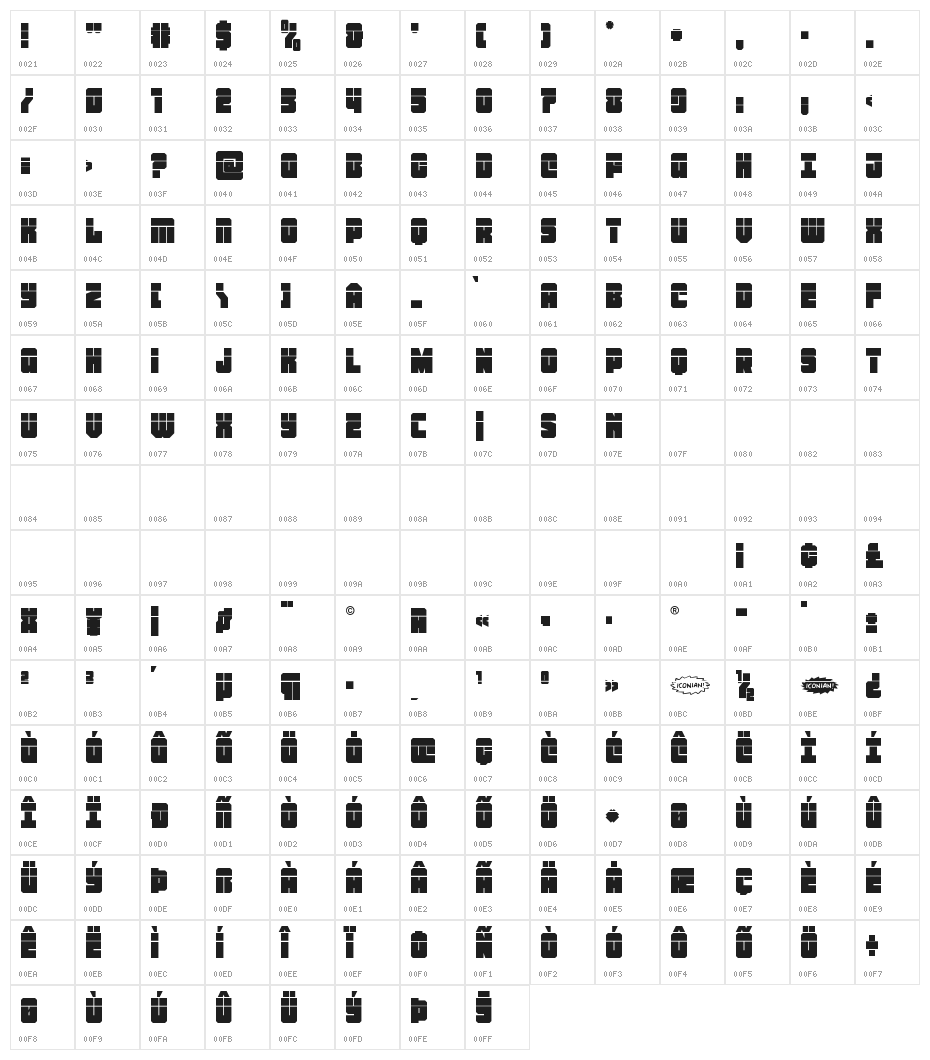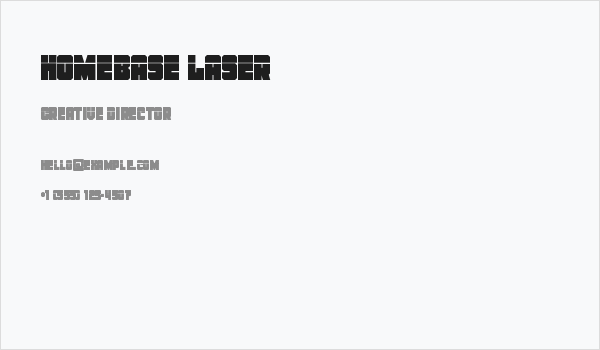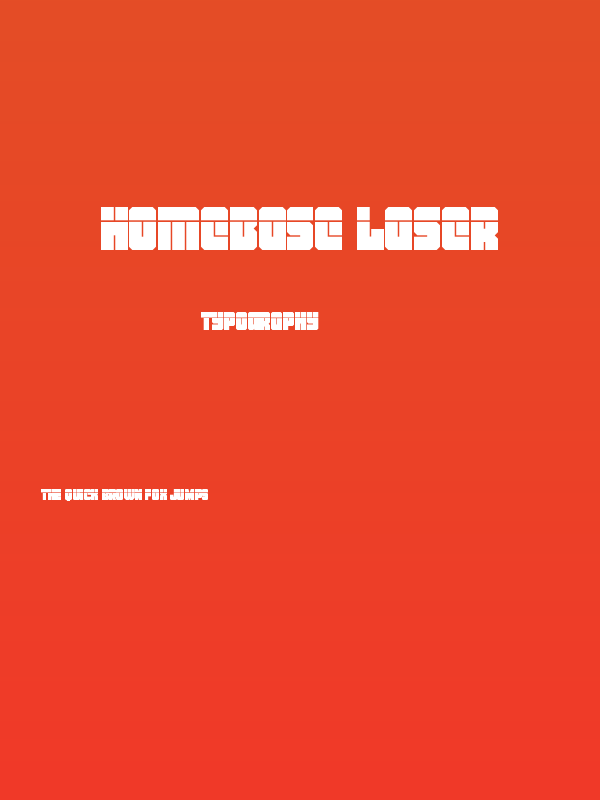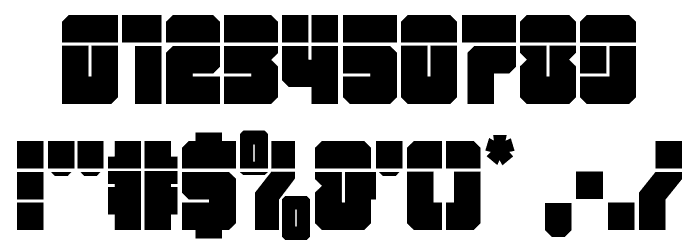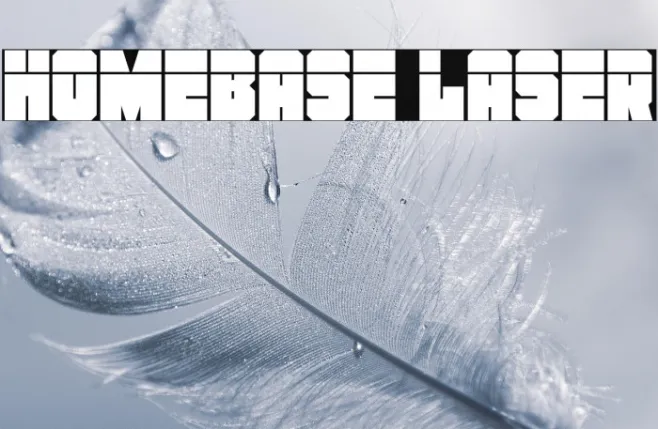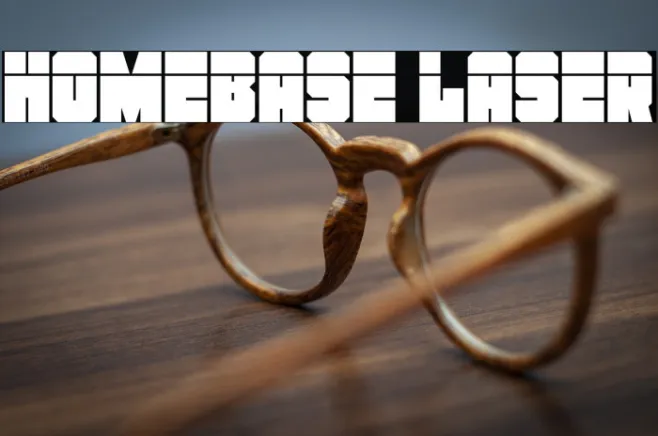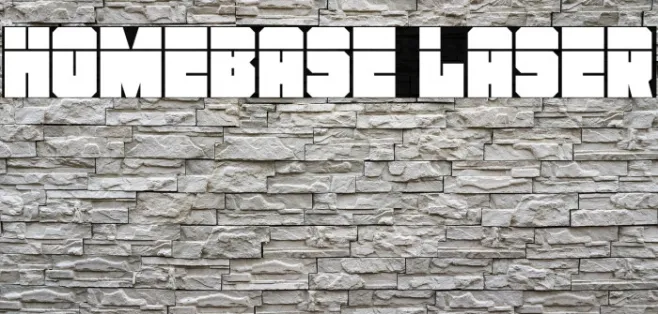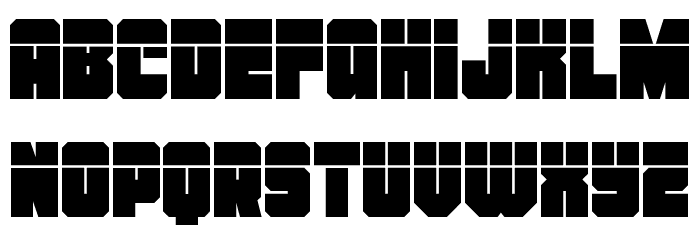
Homebase Laser Font
Homebase Laser Description
This font features a bold, geometric design with a blocky and angular appearance. Each character is constructed with sharp edges and uniform thickness, creating a strong visual impact. The uppercase and lowercase letters maintain a consistent style, emphasizing a futuristic and industrial aesthetic. The numbers and special characters follow the same design principles, ensuring cohesion across all elements. This font's solid and robust structure makes it ideal for attention-grabbing designs.
| Proposed Projects | Ideal for posters, logos, video game titles, and branding that requires a strong, modern look. |